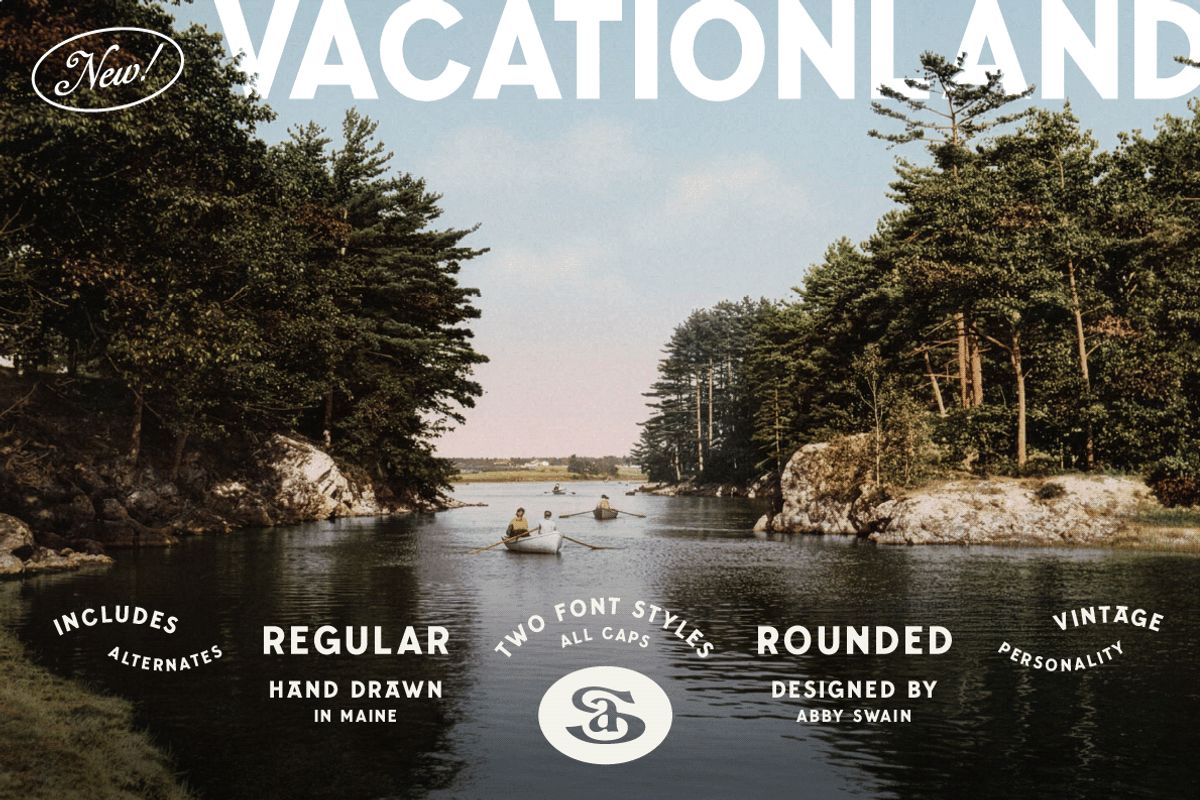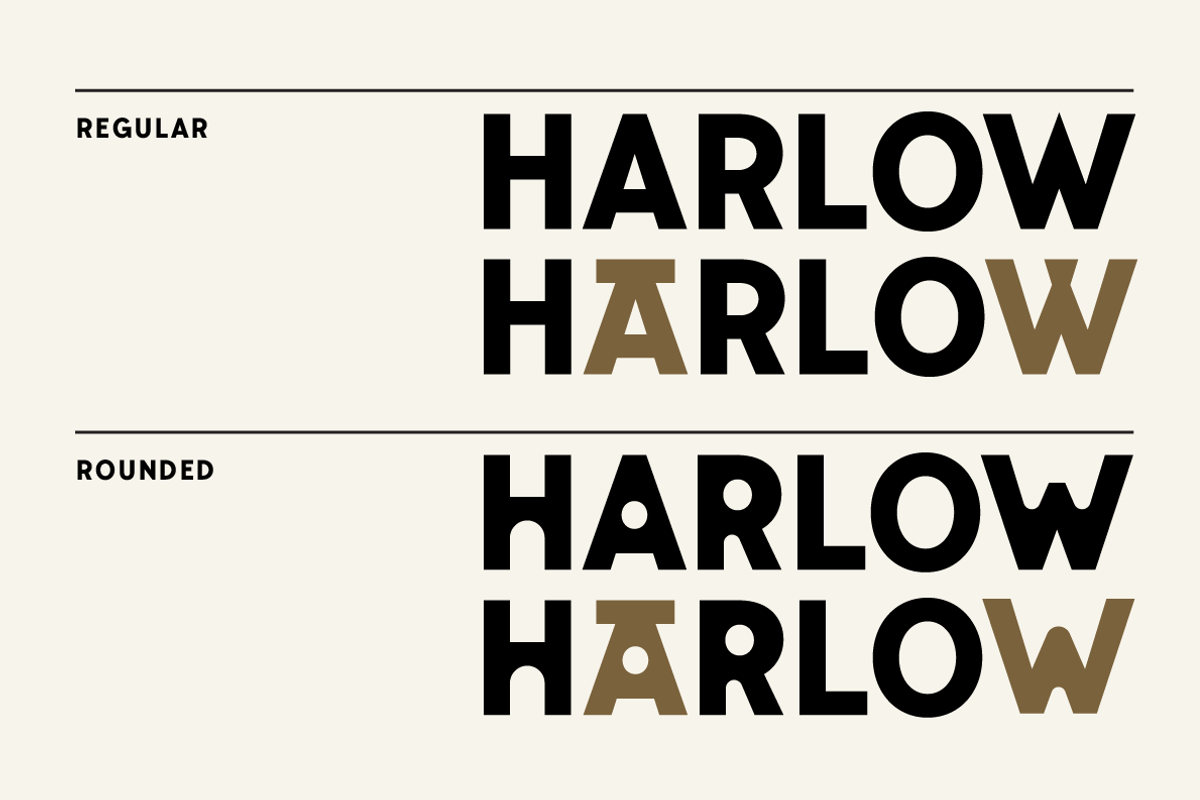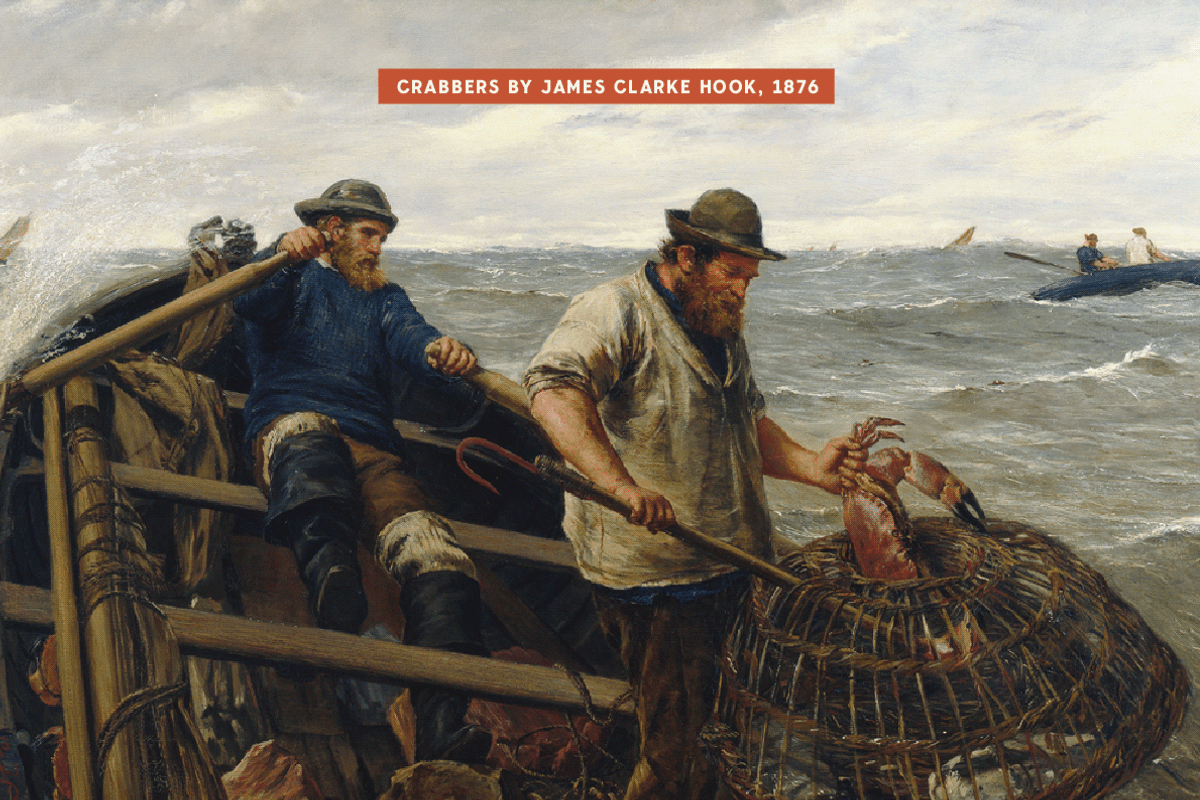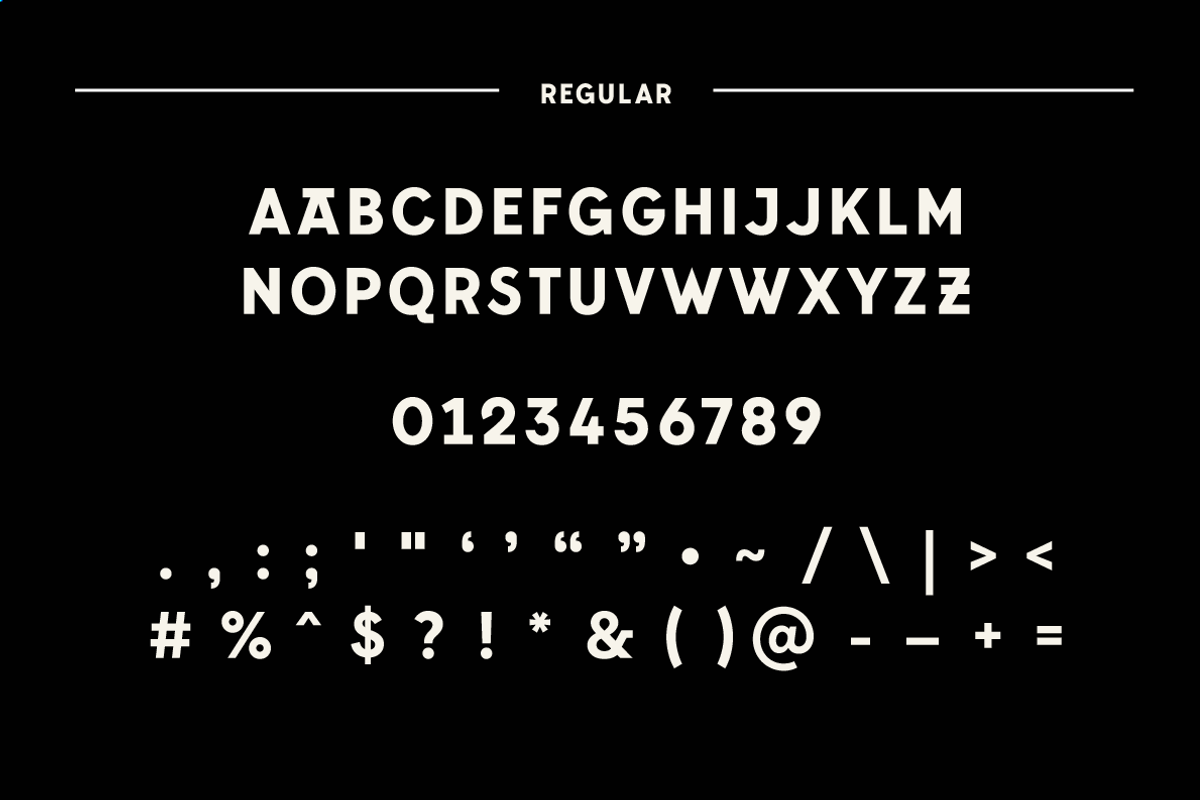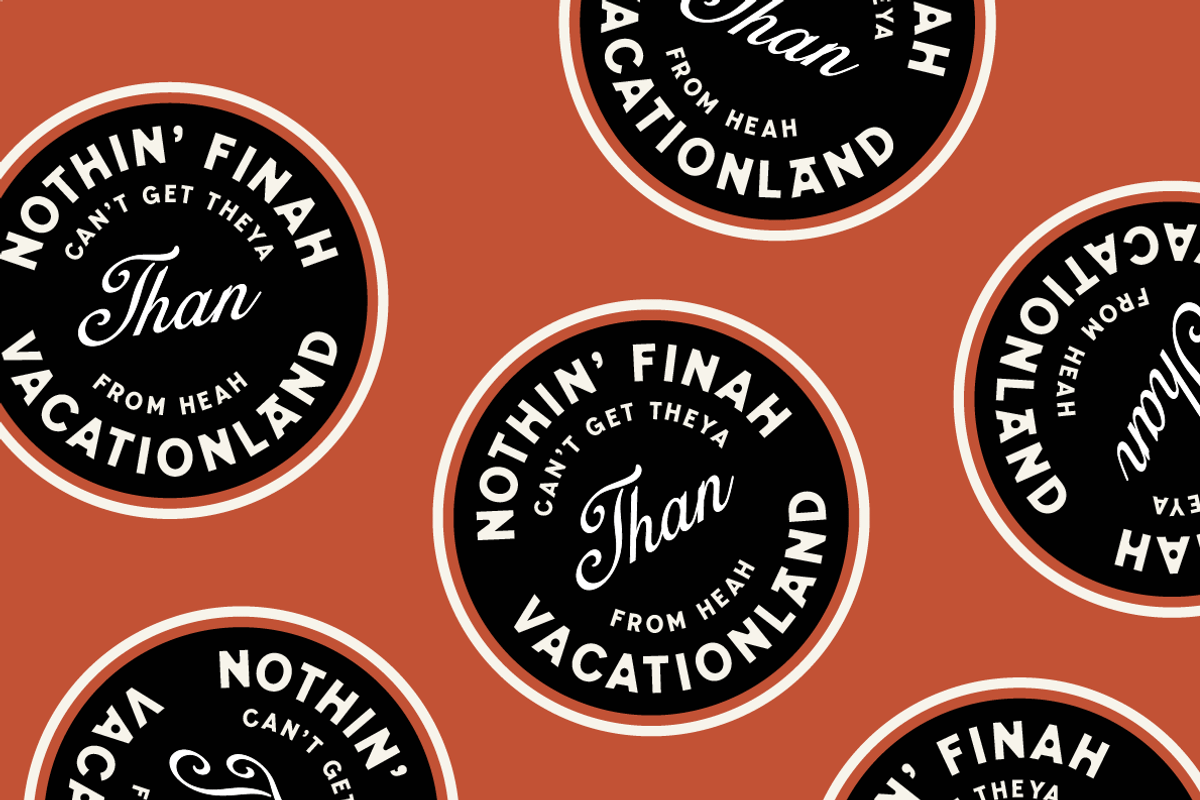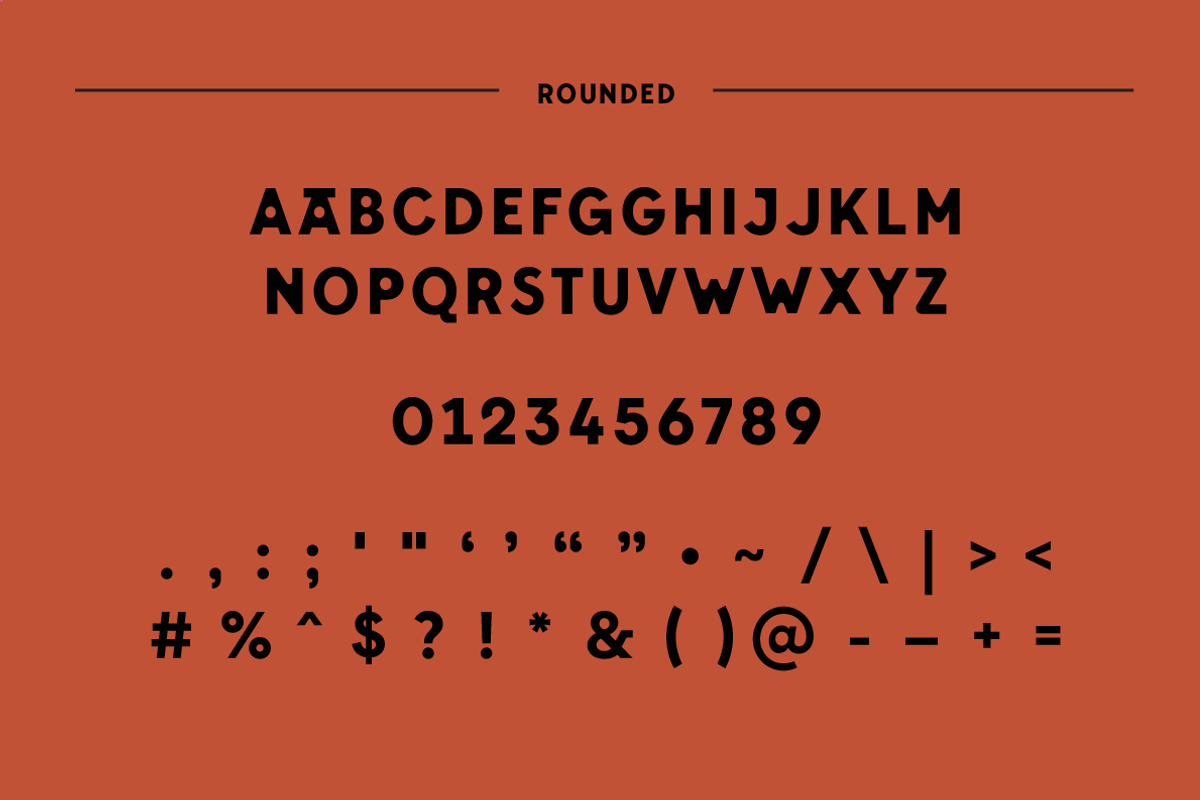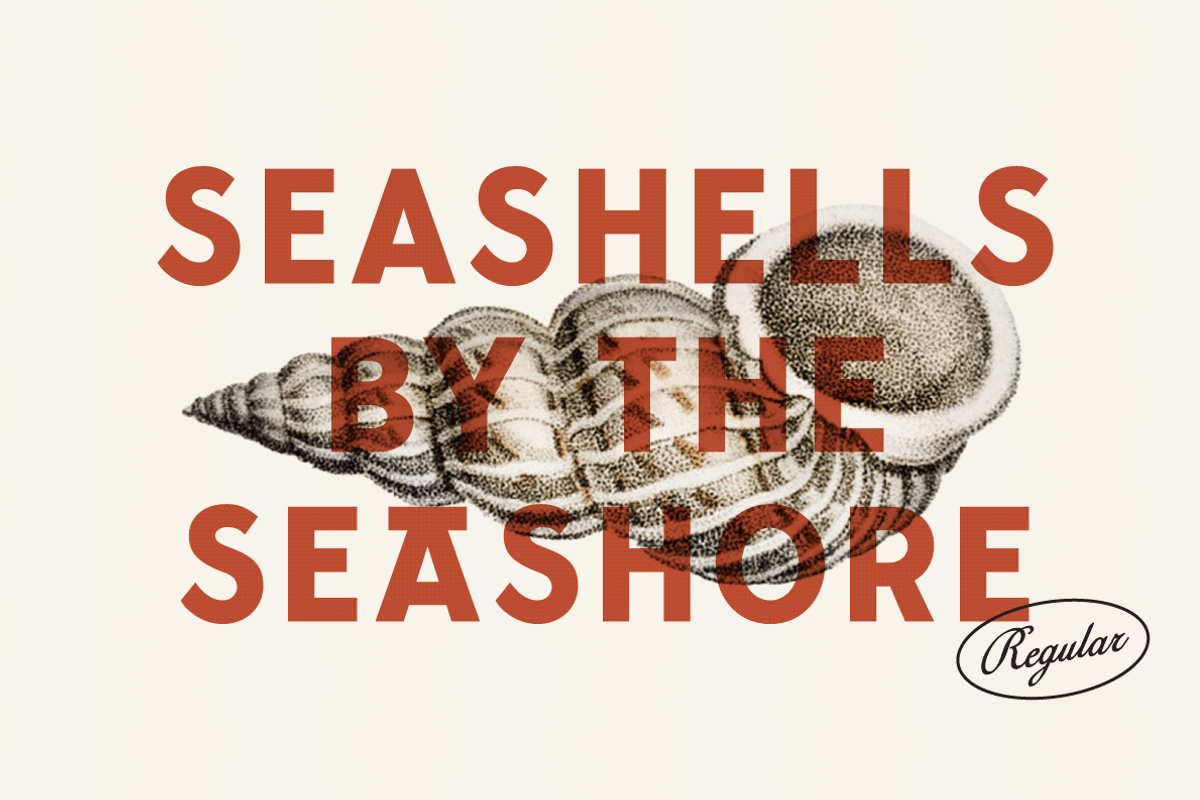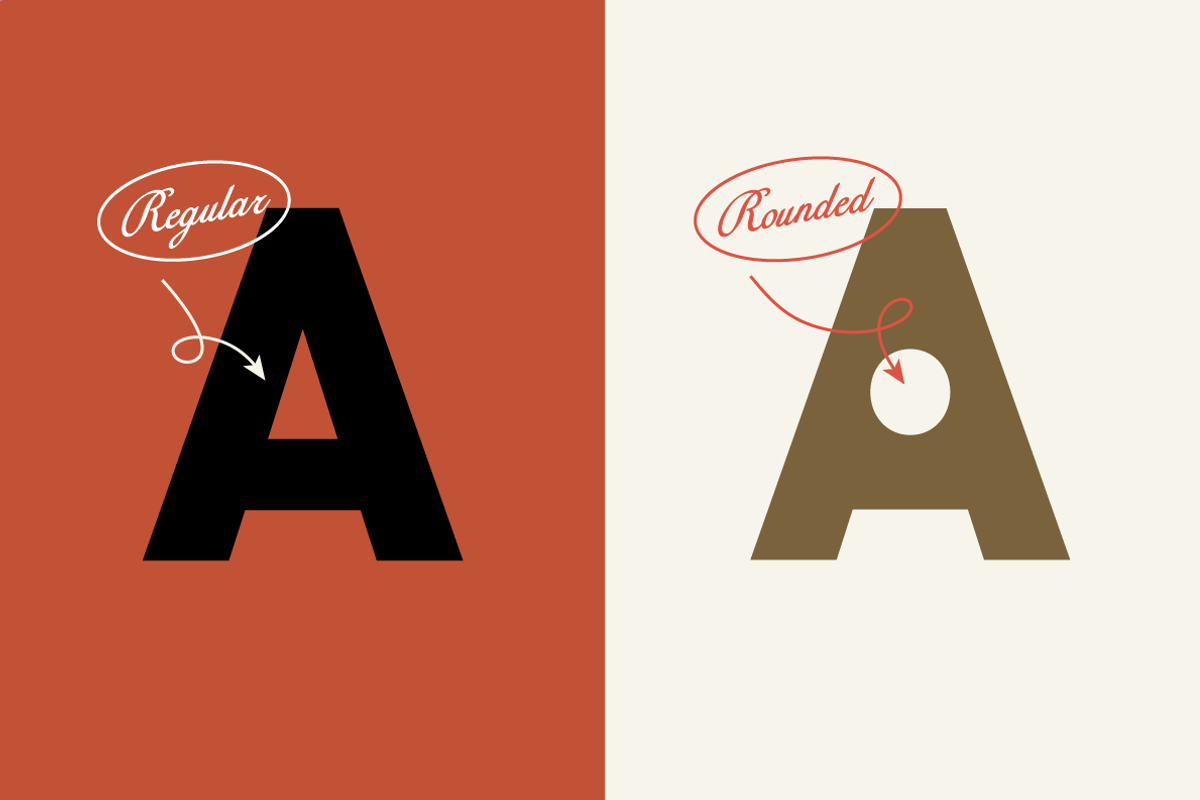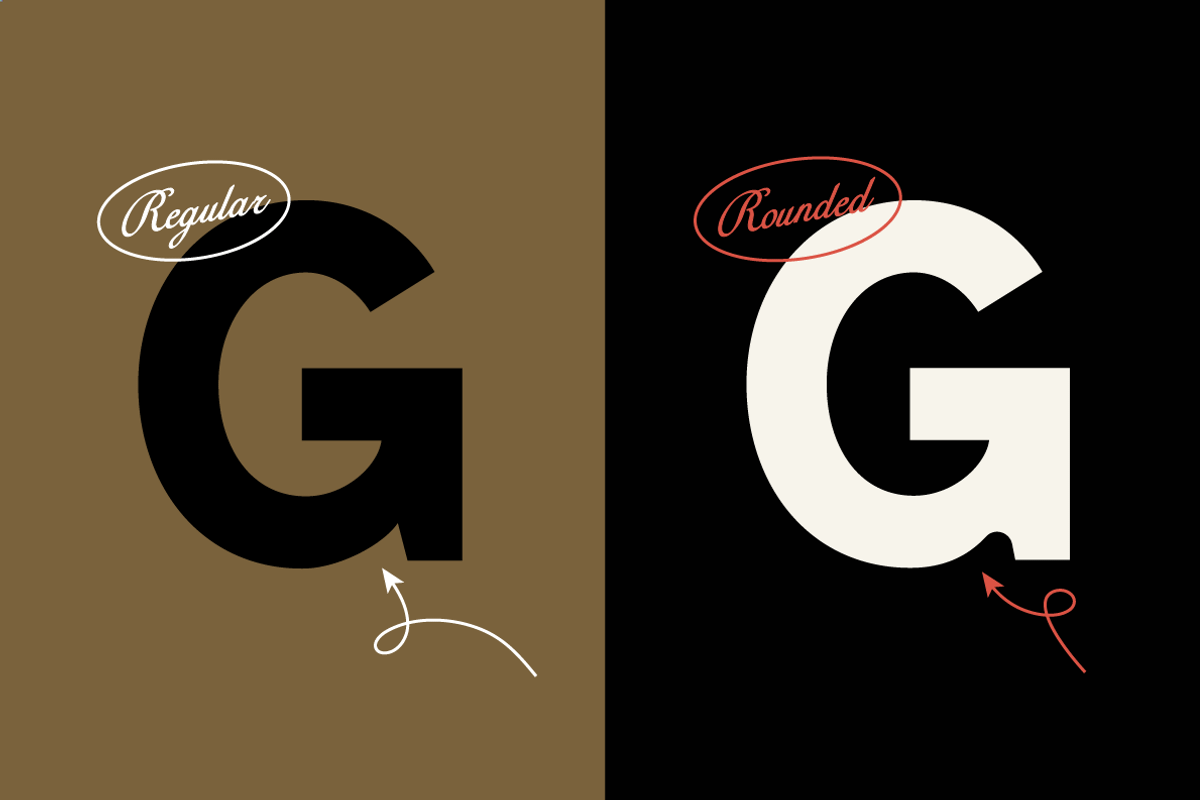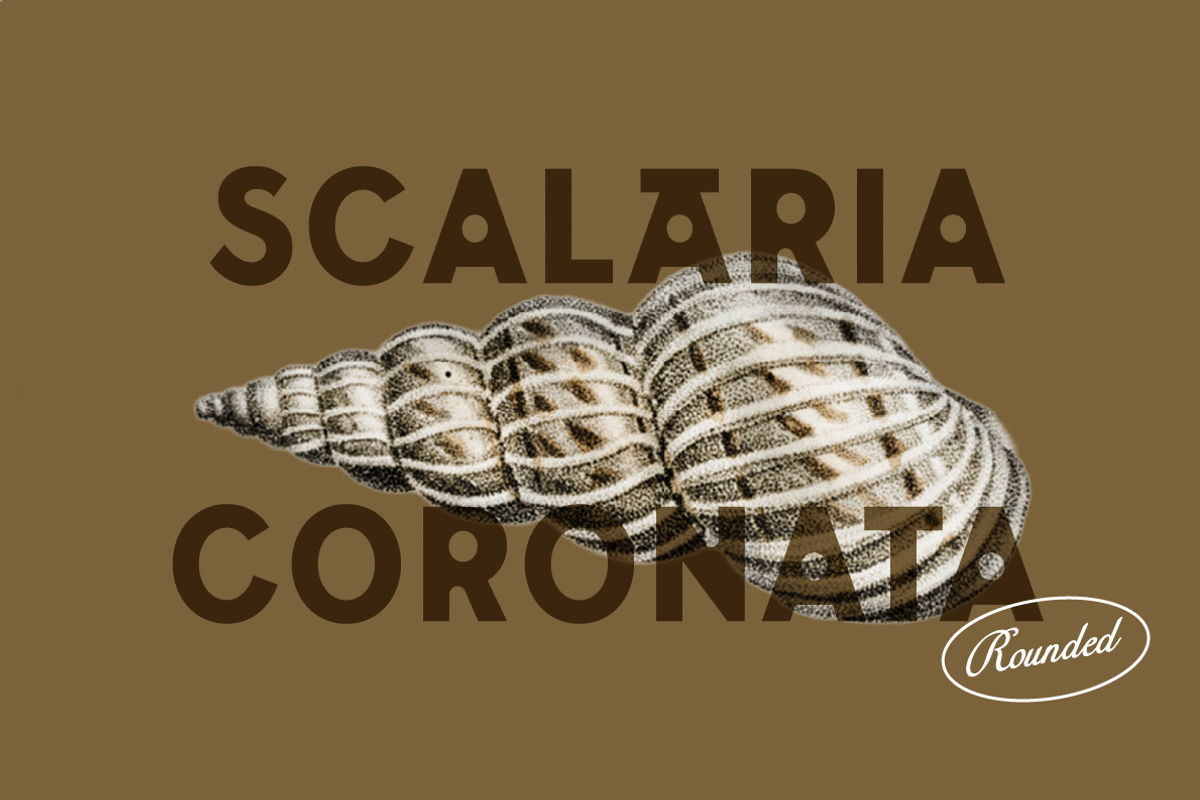
Vacationland
Introducing Vacationland — a sturdy, versatile sans inspired by New England. It comes in two styles: regular, and a softer rounded version with circular counters for a bit more personality when you need it. Both styles are simple, readable, and include a few handy alternates, making them great even at small sizes.
Vacationland Regular
Vacationland Round
Uppercase letters only
Numbers + punctuation